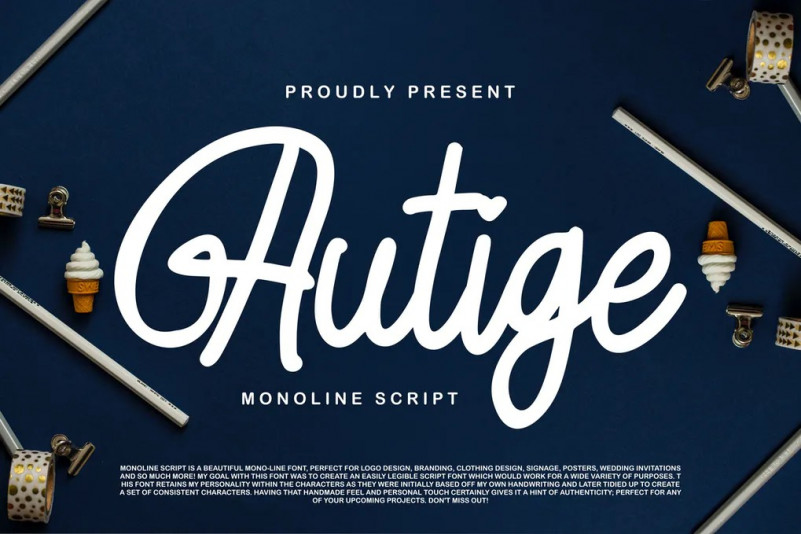
Autige Font
Autige Monoline Script – is a new font that is authentic and suitable for many of your visual needs, like for invitation, greeting cards, branding materials, business cards, quotes, posters, and more!